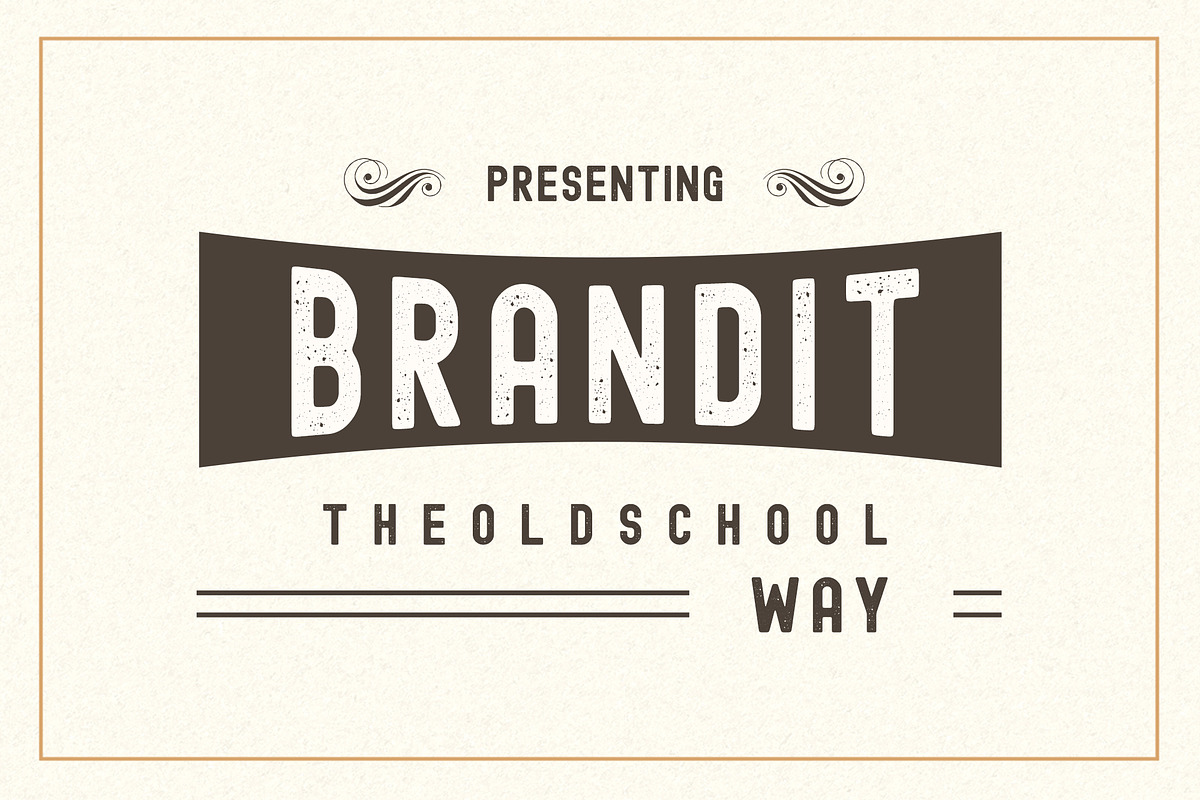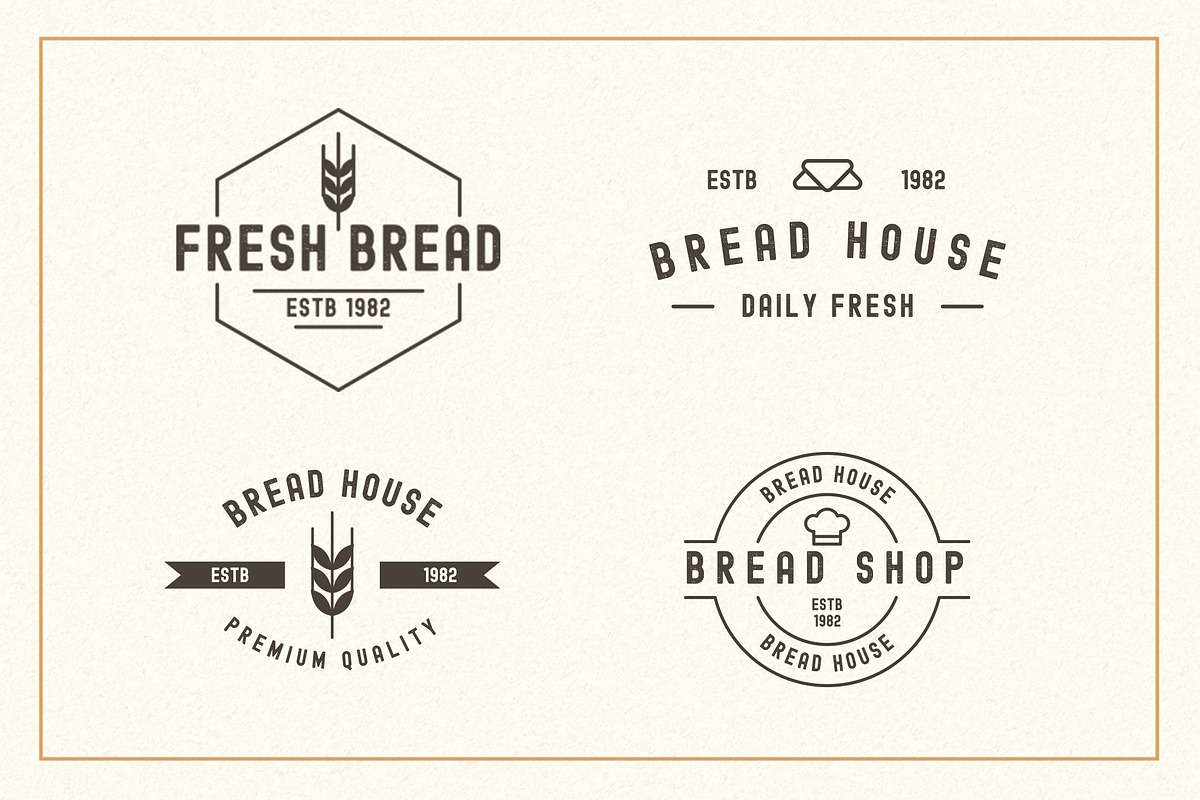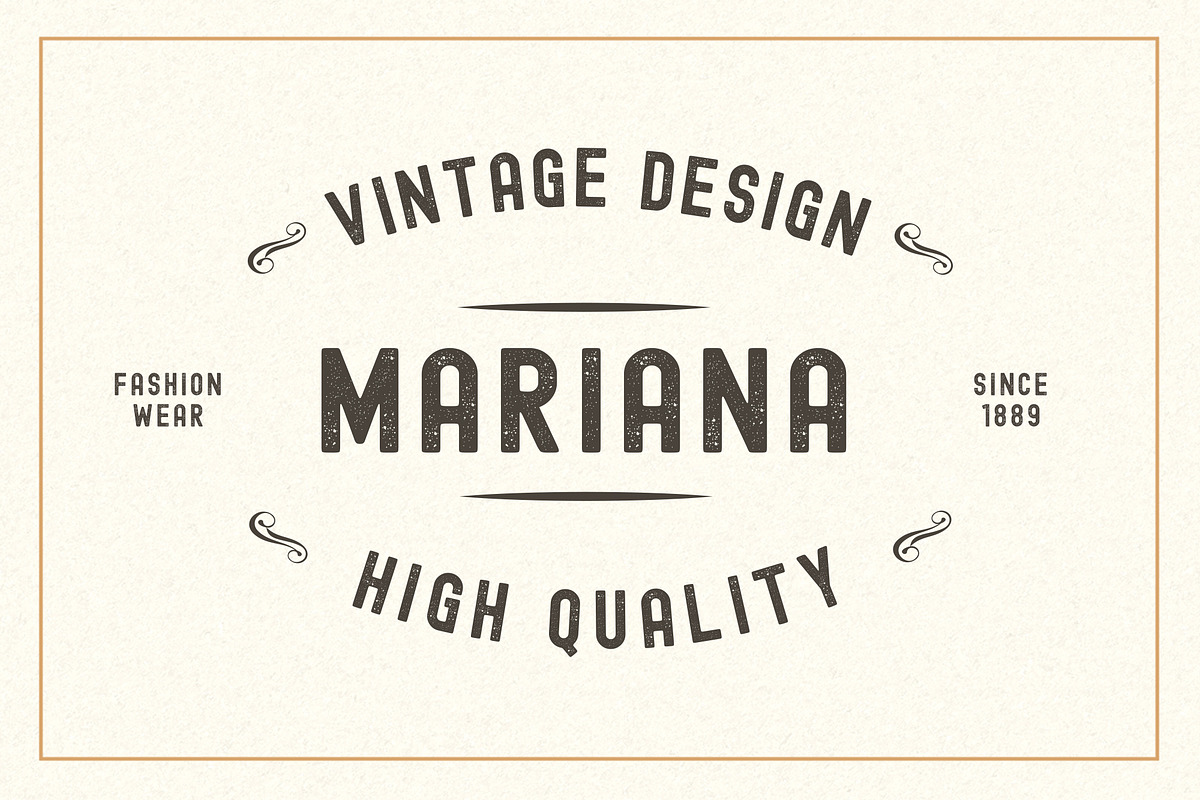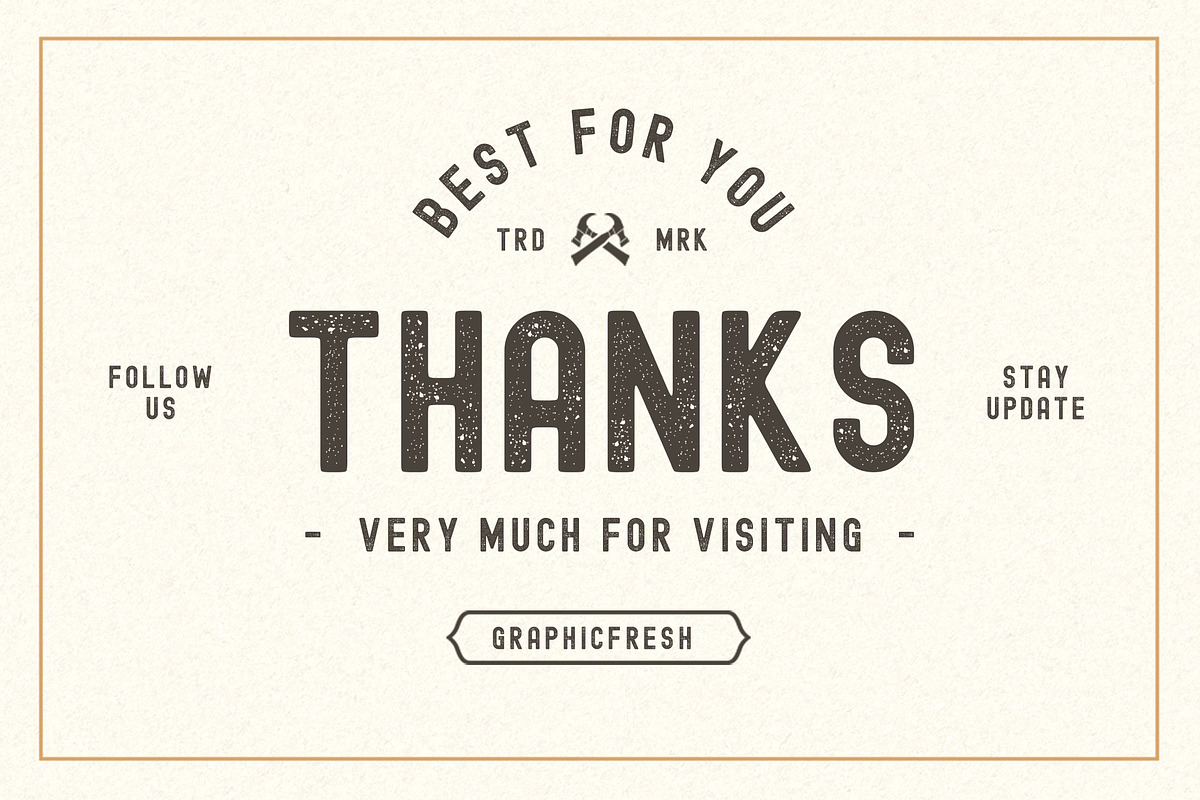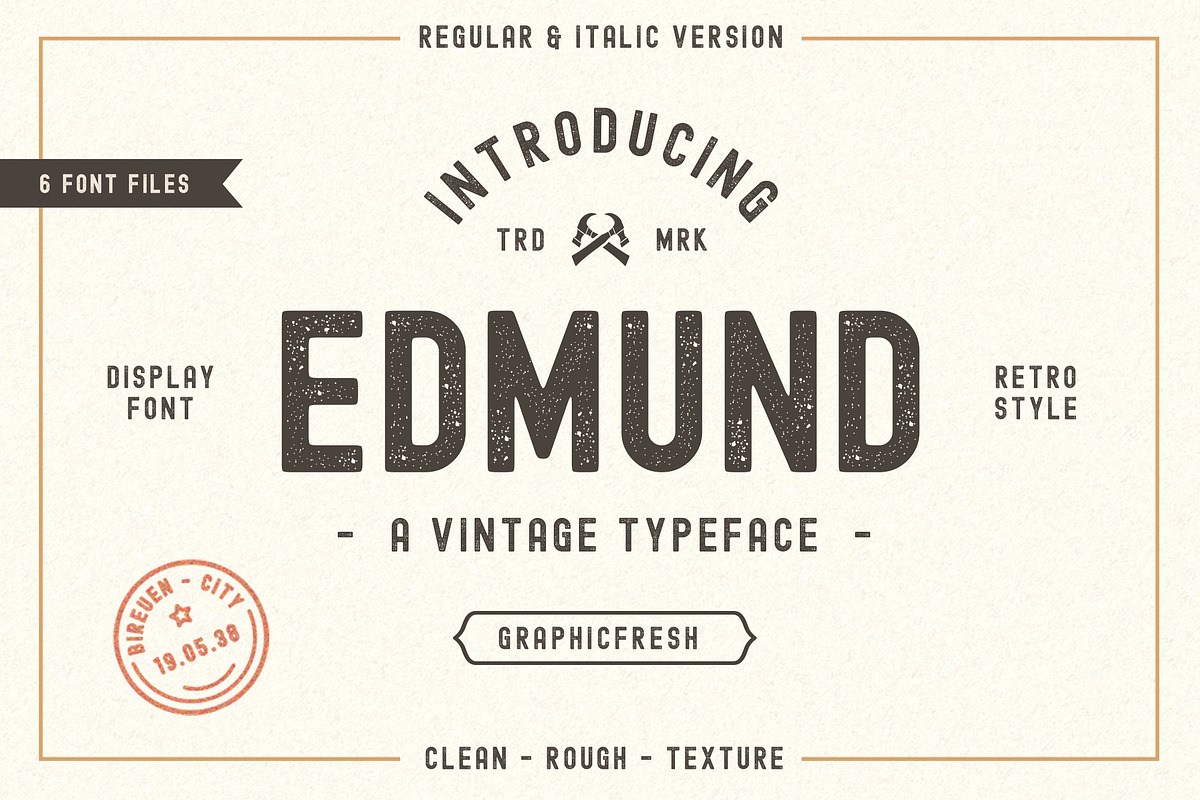
The Edmund - 6 Font Files
Edmund is a vintage display family including Textured, Rough & Clean versions as well as Italic versions of each. it's perfect for logos, name card, magazine layouts, invitations, headers, or even large-scale artwork. Edmund includes 6 OTF & TTF files within the Zip folder.